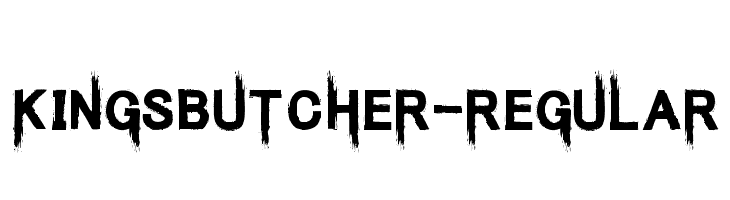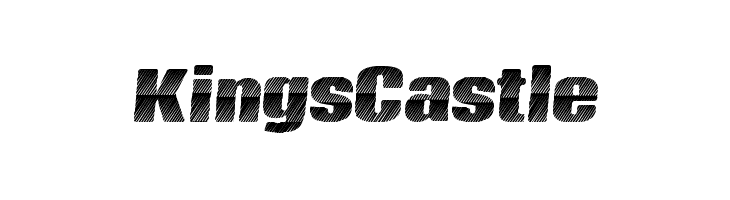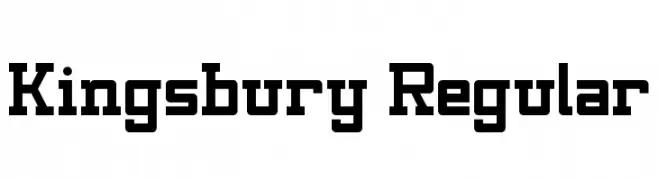
A refined serif font with thin strokes and a modern, elegant appearance.
A bold, structured font with geometric shapes and slab serif elements, offering a vintage yet modern appeal.
A bold, distressed font with a rugged, grunge-like appearance.
A bold, textured font with diagonal lines, perfect for striking headlines.
An ornate Blackletter font with intricate flourishes and sharp angles.
A lively, handwritten font with fluid, connected strokes and a dynamic slant.
A bold, playful font with rounded strokes and a three-dimensional outline.
A bold, playful italic font with a thick outline and rounded characters.
A playful, handwritten font with whimsical curves and decorative elements.
A decorative font with ornate borders and a vintage, elegant style.